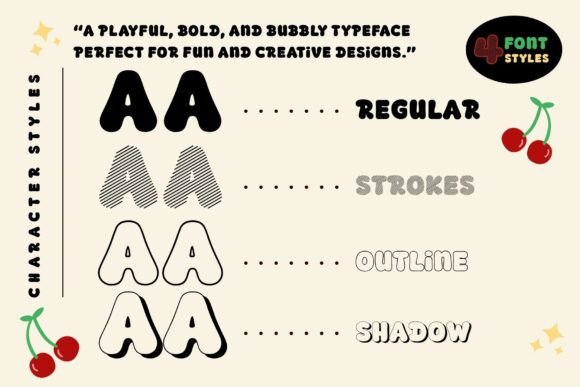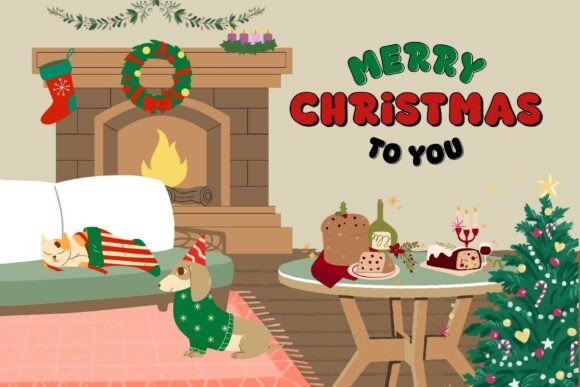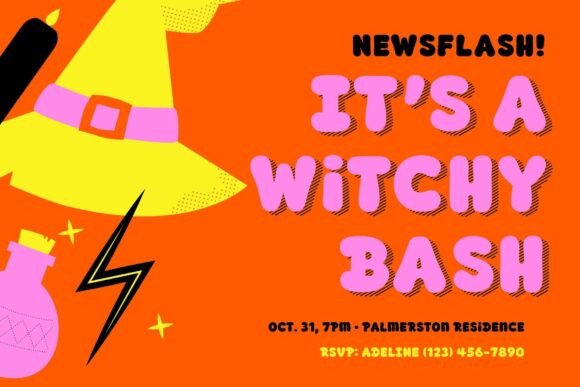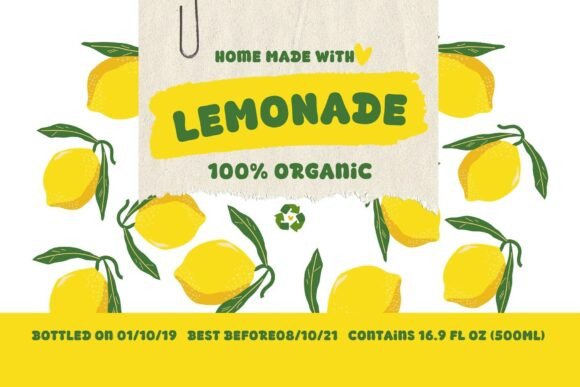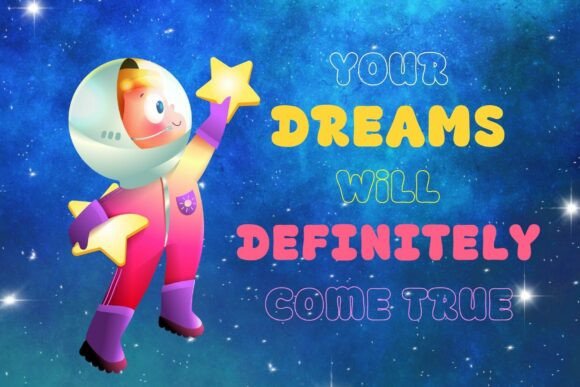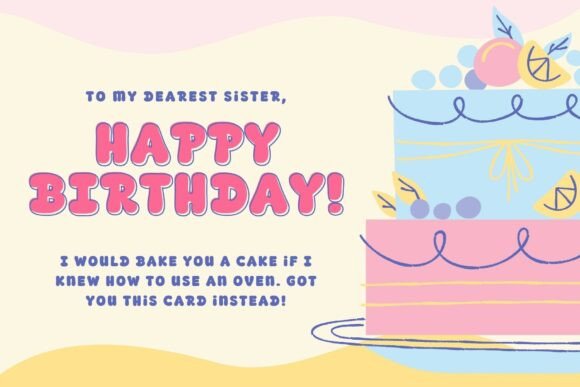
Unlocking Joy in Design: The Fox Cerise Font Story
Have you ever been in the middle of a design project, and suddenly, it feels like something’s missing? You’re not quite sure what it is, but you know it’s not quite right. I recall a project where I was tasked with creating a playful brand identity for a kids’ entertainment center. The challenge was finding a font that captured the fun, energetic vibe I wanted to convey. That’s when I stumbled upon Fox Cerise, a font that instantly brought a burst of joy to my designs.
First Impressions: A Fun and Friendly Font
Fox Cerise is more than just a font; it’s a design companion that injects personality into your work. With its chubby, rounded letterforms and cheerful comic style, it’s perfect for projects that require a playful touch. From kids’ products and birthday cards to playful branding, comic books, and food packaging, Fox Cerise is versatile and ready to bring your designs to life.
What I Love About Fox Cerise
- ✨ Versatility: Fox Cerise comes in 4 unique styles, giving you the flexibility to mix and match for a dynamic look.
- ✅ Ease of use: The font is incredibly easy to read and works well across various design applications.
- 🎉 Fun and playful: The comic style and rounded letterforms make it perfect for projects aimed at a younger audience or those that require a lighthearted approach.
- 💡 Instant personality: Fox Cerise adds a unique touch to your text, making it pop with personality.
While Fox Cerise is a fantastic font, there are a few things to keep in mind:
- 🤔 Legibility at small sizes: Like many script and comic-style fonts, Fox Cerise can become less legible at very small sizes. It’s best used at larger sizes where its playful nature can shine.
- ⚠️ Overuse: Given its playful nature, using Fox Cerise across an entire website or in lengthy texts might not be the best approach. It’s perfect for headlines, titles, and short bursts of text.
The Story Behind Fox Cerise
The inspiration behind Fox Cerise stems from a desire to create a font that embodies joy and playfulness. Imagine a designer, sitting in a colorful studio filled with toys and comic books, aiming to bottle up the essence of childhood fun into a typeface. The result is Fox Cerise, a font that doesn’t take itself too seriously but makes every project more enjoyable.
| Is Fox Cerise suitable for professional branding? | While Fox Cerise is playful, it can work for professional branding, especially for businesses targeting a younger audience or those in creative industries. However, consider if it aligns with your brand’s tone and personality. |